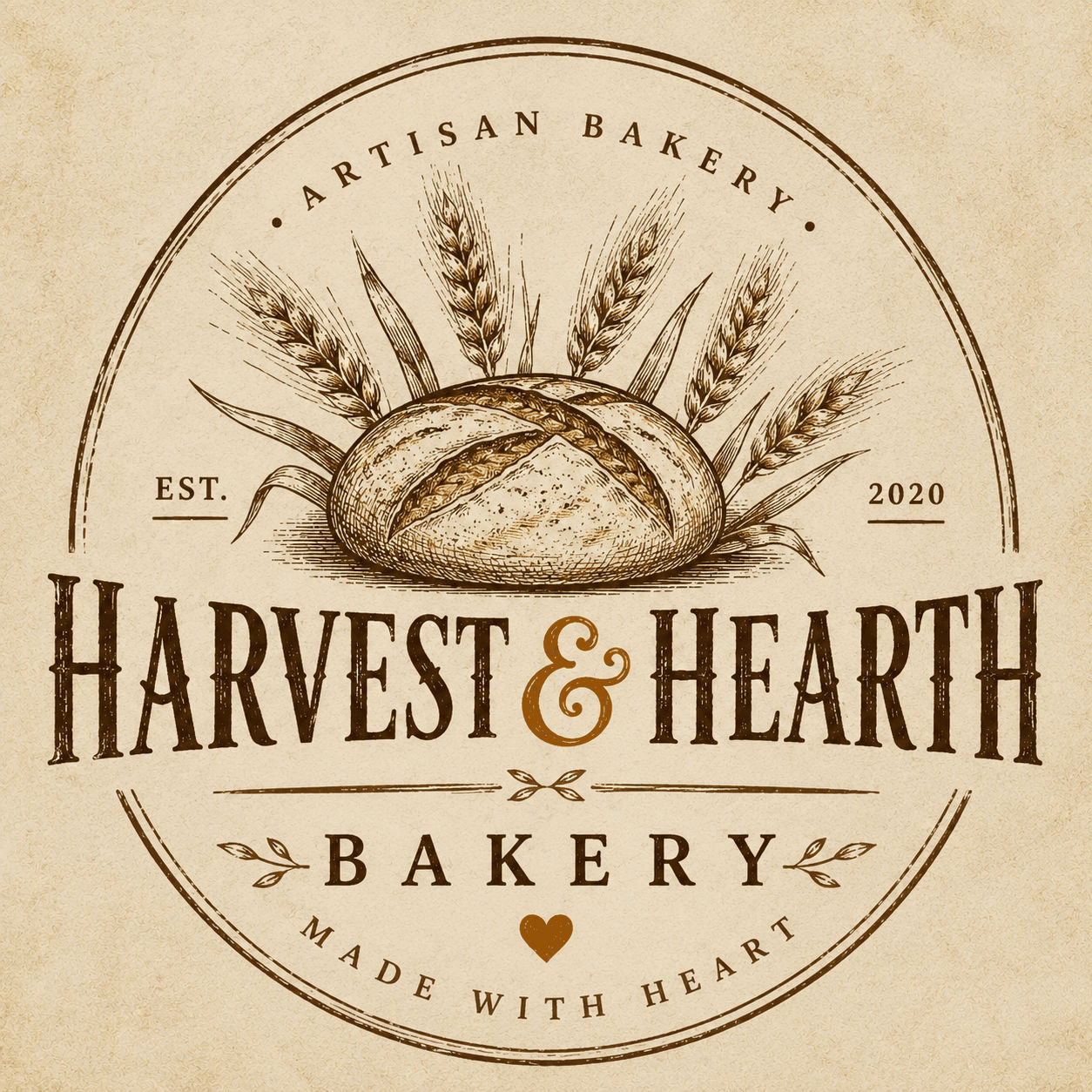
Vintage Logo AI Prompts for Better Retro Branding Results
Creating nostalgic branding is easier today with the help of vintage logo AI prompts. Many designers want logos that feel timeless and authentic, but creating retro aesthetics from scratch can take time and experimentation. Using well-structured vintage logo AI prompts helps designers generate creative logo concepts inspired by classic eras, vintage typography, and retro color palettes.
In this guide, you’ll learn how to use vintage logo AI prompts effectively for branding projects. Whether you are creating logos for coffee shops, fashion brands, barbershops, or retro businesses, these vintage logo AI prompts can help you achieve better retro branding results.
Why Vintage Logo AI Prompts Matter for Branding
Using detailed AI prompts for vintage logos improves logo quality and creativity.
• Faster creative workflow
• Strong nostalgic branding
• More unique logo concepts
Well-crafted AI prompts for vintage logos help brands stand out with timeless aesthetics.
Key Elements in Vintage Logo AI Prompts
Strong AI prompts for vintage logos include several important details.
1. Typography Style
Specify serif, script, badge, or retro display fonts.
2. Color Palette
Use vintage-inspired colors such as cream, brown, muted red, or olive green.
3. Textures and Effects
Add distressed, grainy, or faded effects.
4. Composition
Define layout style such as emblem, badge, or classic typography logo.
These elements improve your AI prompts for vintage logos results.
Classic Badge Vintage Logo AI Prompts
Badge logos are popular in AI prompts for vintage logos.
Example Prompt
• Vintage badge logo for coffee shop, retro serif typography, distressed texture, warm brown and cream palette, classic emblem style
• Retro barbershop badge logo, vintage lettering, faded texture, bold emblem composition, dark green and beige colors
vintage logo AI prompts
Example Vintage Badge Logo for Coffee Shop.
These AI prompts create authentic vintage branding.
Retro Typography Vintage Logo AI Prompts
Typography-focused AI prompts for vintage logos create timeless logos.
Example Prompt
• Vintage typography logo for clothing brand, bold serif font, retro color palette, textured background, minimalist composition
• Classic retro logo with script typography, elegant curves, faded paper texture, nostalgic atmosphere
vintage logo AI prompts
Example Vintage Typography Logo for Clothing Brand.
These AI prompts for vintage logos work well for fashion and lifestyle brands.
Minimal Vintage Logo AI Prompts
Minimal approaches to AI prompts for vintage logos combine retro aesthetics with modern simplicity.
Example Prompt
• Minimal vintage logo for skincare brand, clean serif typography, muted pastel colors, elegant layout
• Simple retro logo design, monochrome palette, subtle distressed texture, timeless branding style
vintage logo AI prompts
Example Minimal Vintage Logo for Skincare Brand.
Minimal AI prompts for vintage logos create modern but nostalgic branding.
Rustic Vintage Logo AI Prompts
Rustic styles are effective in AI prompts for vintage logos.
Example Prompt
• Rustic bakery logo, hand-drawn wheat illustration, warm earthy tones, vintage typography, textured background
• Vintage farm logo design, classic badge composition, distressed texture, rustic branding aesthetic
vintage logo AI prompts
Example Rustic Bakery Logo.
Image Source: ChatGPT
These AI prompts for vintage logos create warm and authentic visuals.
Luxury Vintage Logo AI Prompts
Luxury branding also benefits from AI prompts for vintage logos.
Example Prompt
• Luxury vintage logo for jewelry brand, elegant serif typography, gold and black palette, sophisticated retro aesthetic
• Classic premium logo design, refined vintage details, minimal luxury composition, timeless branding
vintage logo AI prompts
Example Luxury Vintage Logo for Jewelry Brand.
Image Source: ChatGPT
Luxury-focused AI prompts for vintage logos create premium visual identity.
Vintage Logo AI Prompts for Different Industries
Different businesses can benefit from AI prompts for vintage logos.
1. Coffee Shops
Warm earthy palettes and handcrafted typography.
2. Fashion Brands
Retro typography and minimal badge logos.
3. Barbershops
Classic masculine emblem aesthetics.
4. Restaurants
Rustic textures and nostalgic visuals.
Industry-focused AI prompts for vintage logos improve branding relevance.
Font Pairing Suggestions for Vintage Logo AI Prompts